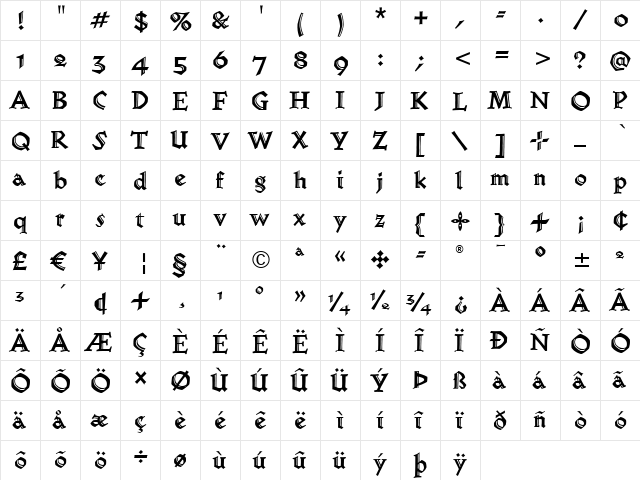
Werkstatt Engraved ITC Black
Design Context for Werkstatt Engraved ITC Typeface
Werkstatt Engraved ITC brings ornamental detail and strong personality to headlines and identities, where visual impact matters more than quiet functionality.
Font Pairing: Pair with a clean neutral sans-serif for body copy to let Werkstatt Engraved ITC's character lead without overwhelming the composition.
Pro Tip: Treat Werkstatt Engraved ITC as the centrepiece of your typographic hierarchy. One strong heading set in a decorative face can carry an entire layout.